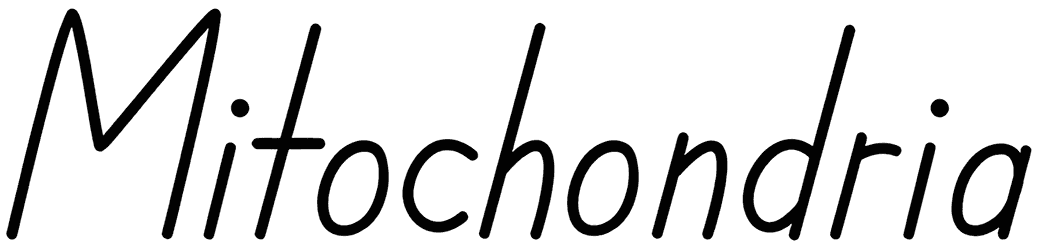
Mitochondria Font
The script font that is known as Mitochondria has a thin and tall face. This simple font works really well for a wide variety of applications, such as logos, blog headlines, posters, invitations, stationery, and other such things. Embrace a raw, city-like atmosphere by using this contemporary handwritten font. While you browse, our large collection of fonts is sure to put a smile on your face.
Inspired from my highschool notes, named after the only thing I remember from biology class.
With unique characteristic of hand written letter plus high readibility, this font is perfect for letter, branding, invitation, stationary, poster, quotes or whenever you need hand writing element in your design